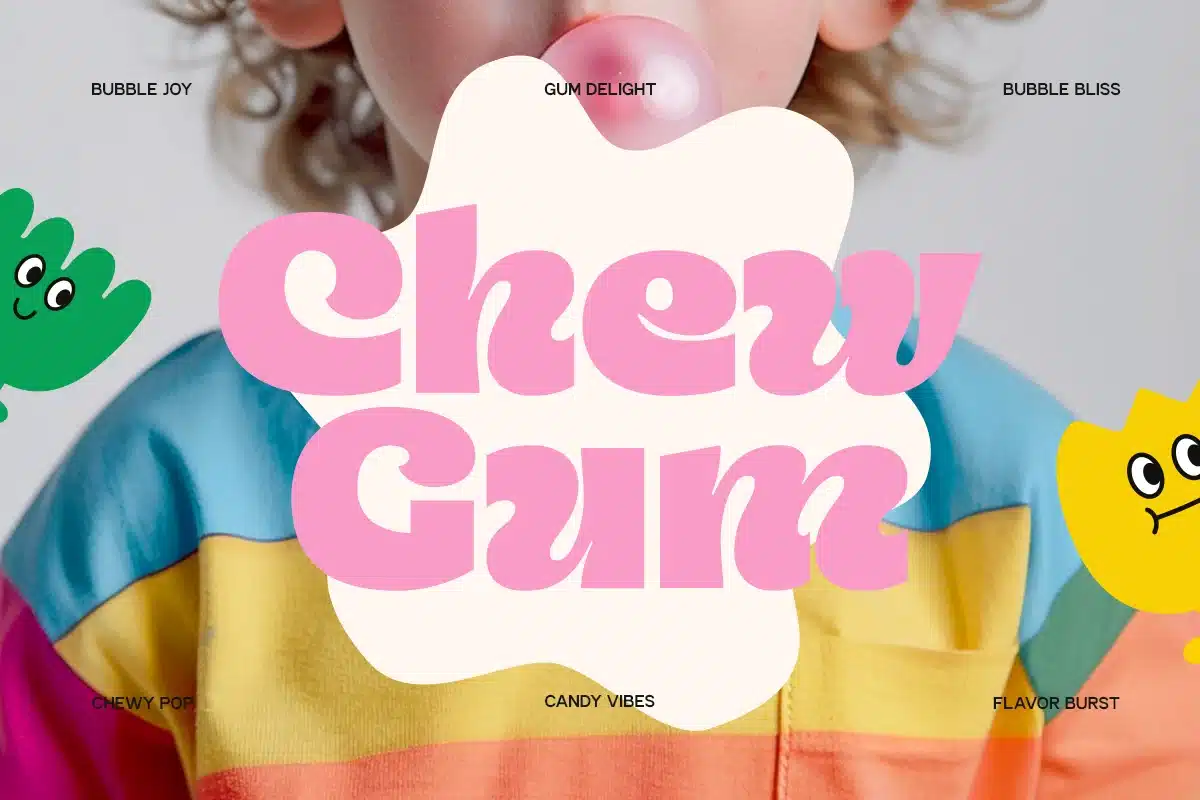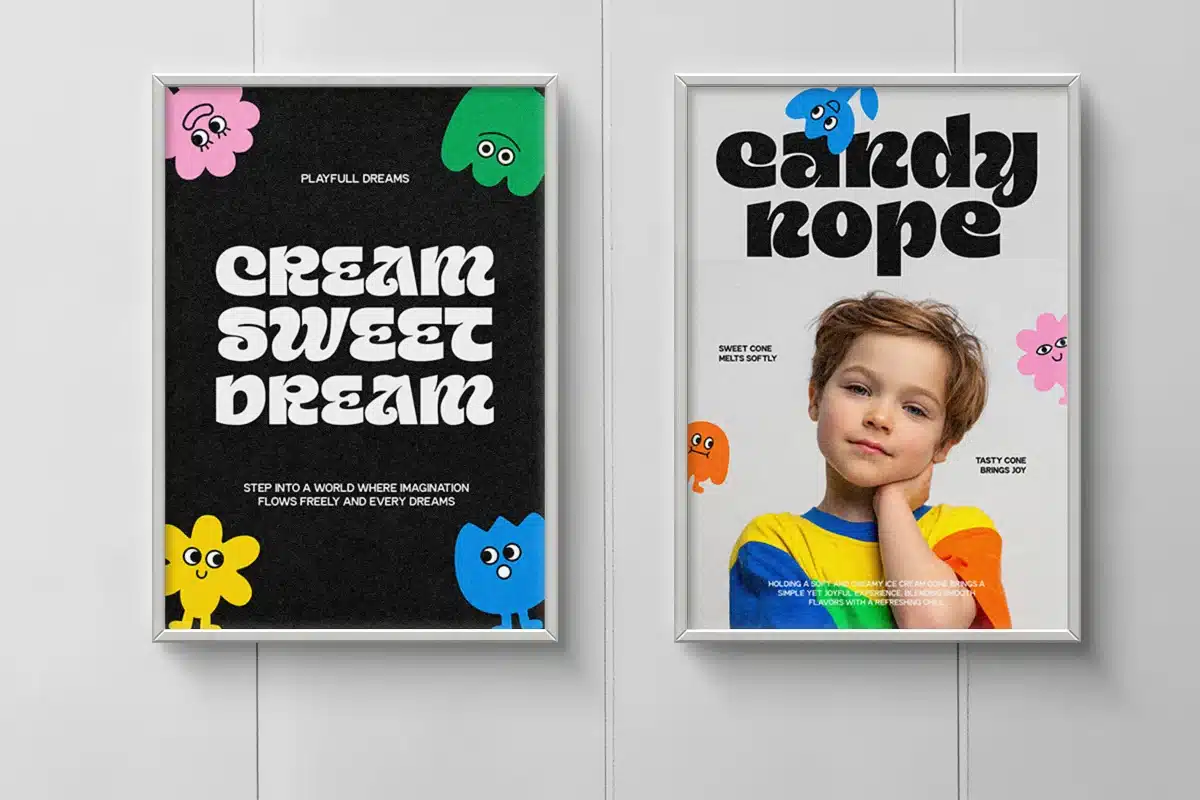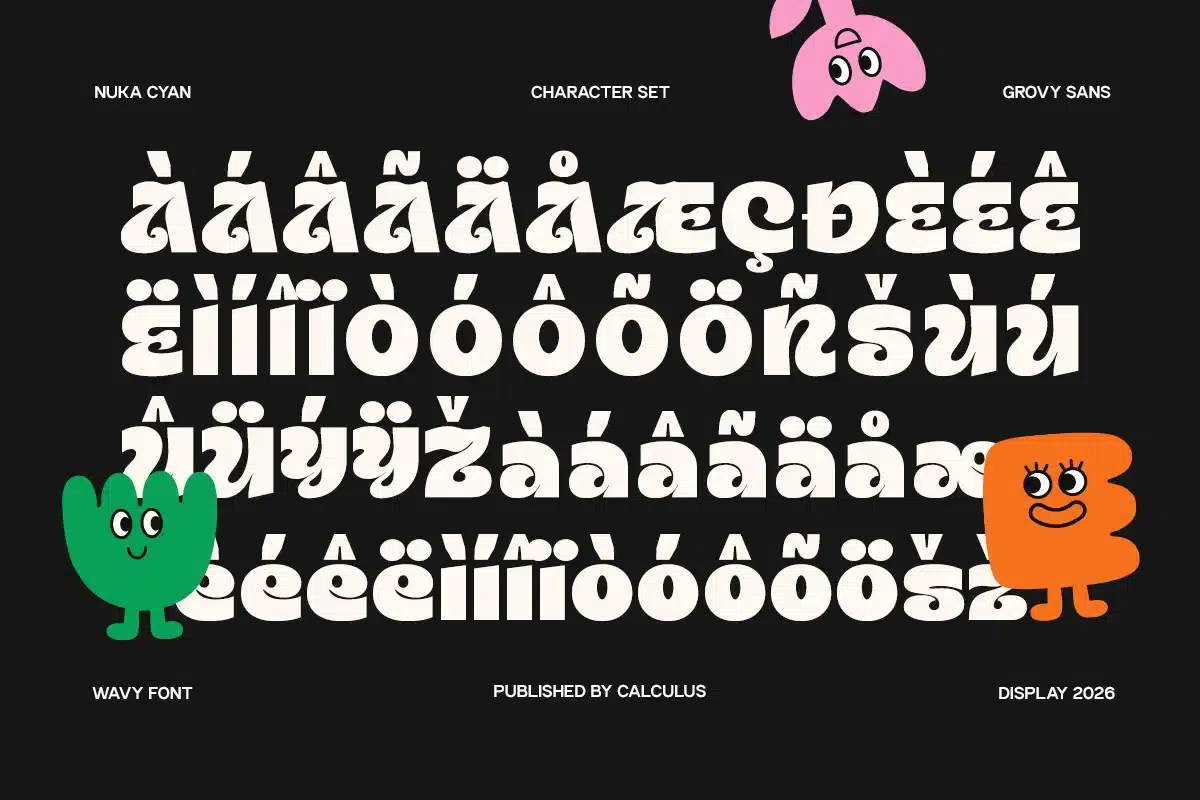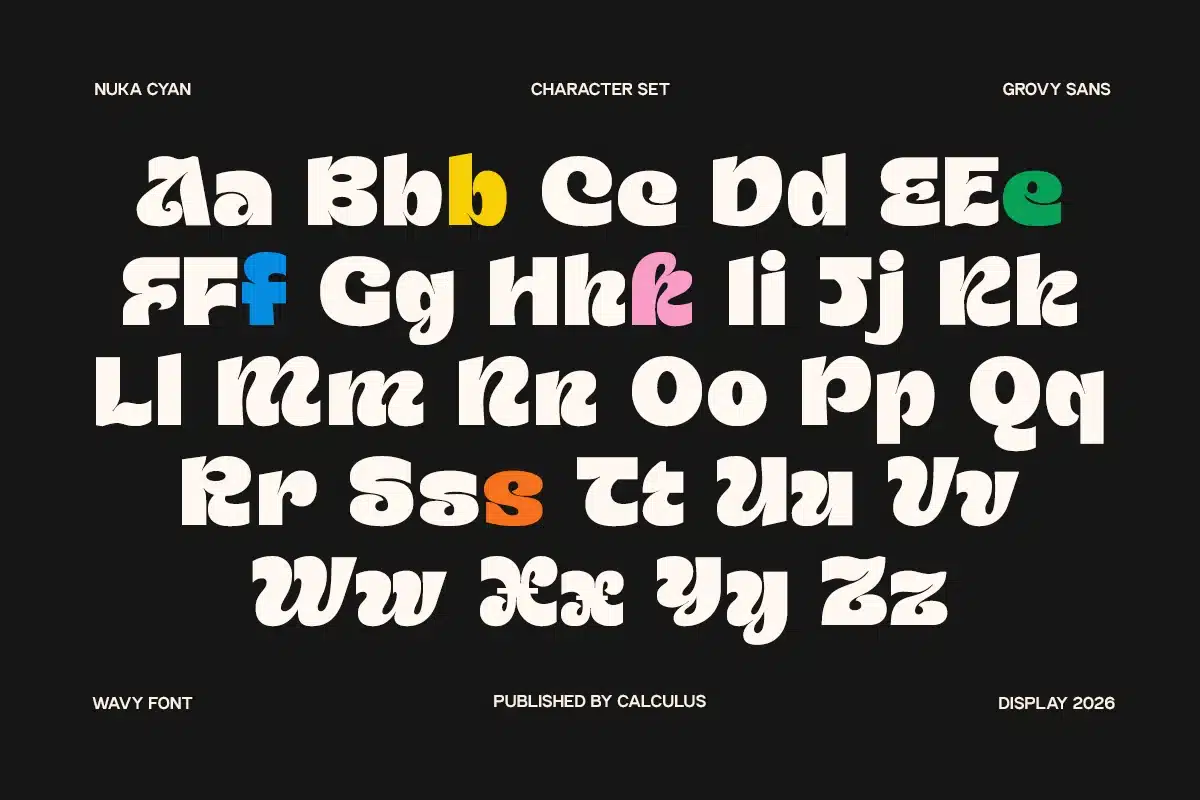
Stylish Logo Font – CC Nuka Cyan
Stylish Logo Font – CC Nuka Cyan is a modern display typeface crafted to create a bold and stylish visual identity. Designed with clean shapes and distinctive character, CC Cyan delivers a unique typographic voice that feels contemporary, sleek, and highly memorable.
Built with refined curves and balanced forms, CC Nuka Cyan brings a perfect mix of elegance and personality. Its strong yet stylish appearance makes it ideal for logo design, branding, headlines, and creative visual compositions that demand a standout look.
Carefully designed for versatility, CC Nuka Cyan performs exceptionally well across branding systems, posters, editorial layouts, packaging, and digital interfaces. Its stylish construction allows designers to create visuals that feel modern, confident, and visually engaging.
The combination of clean structure, expressive form, and modern aesthetics makes CC Nuka Cyan perfect for projects that aim to be distinctive, premium, and eye-catching.
- Stylish Display Logo Font
- Clean & Modern Character
- Elegant Curves & Distinctive Forms
- Strong Visual Identity
- Ideal for Logo & Branding
- Suitable for Poster, Packaging, and Digital Design
- Optimized for Print and Digital Use
- Unique and Memorable Appearance
CC Nuka Cyan delivers modern style — a sleek logo font designed to elevate your brand with confidence and character.